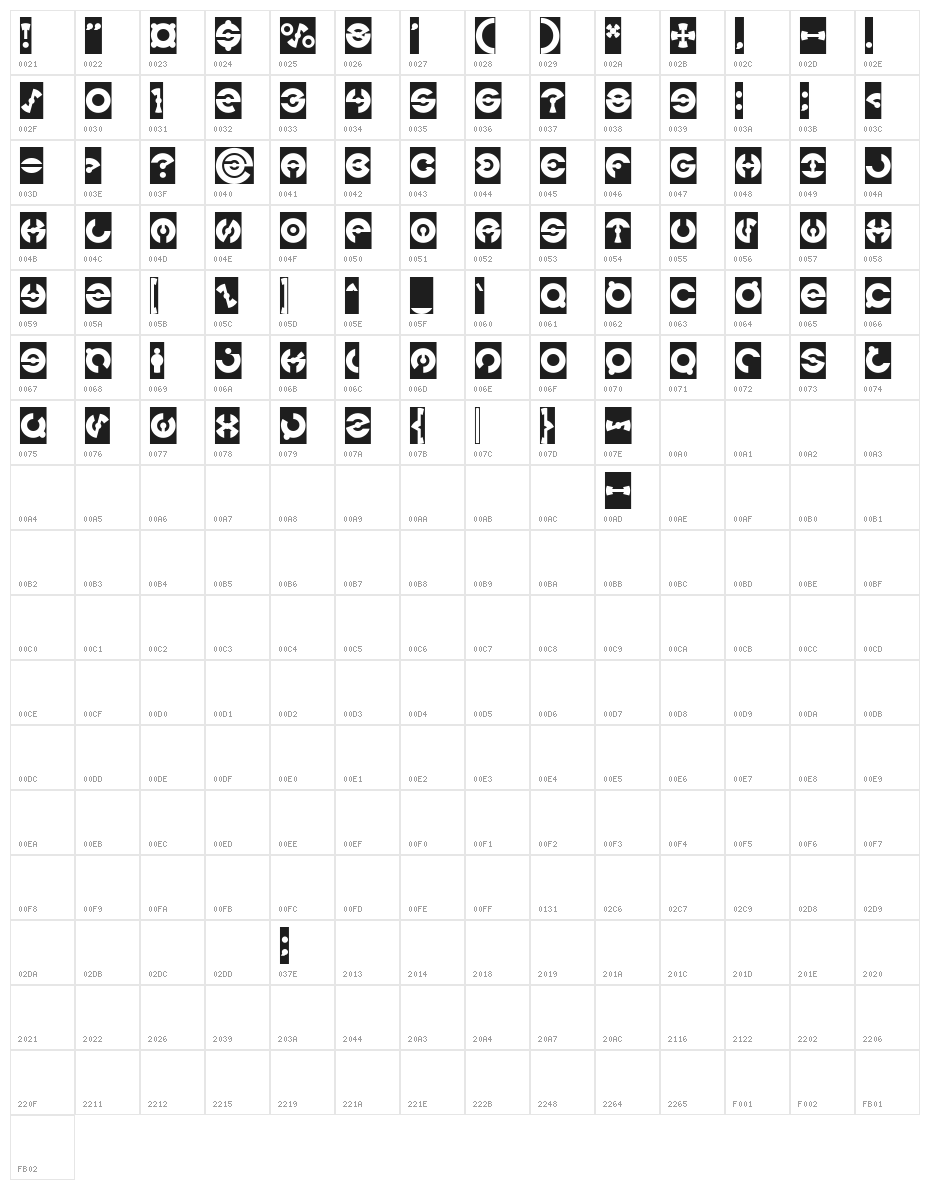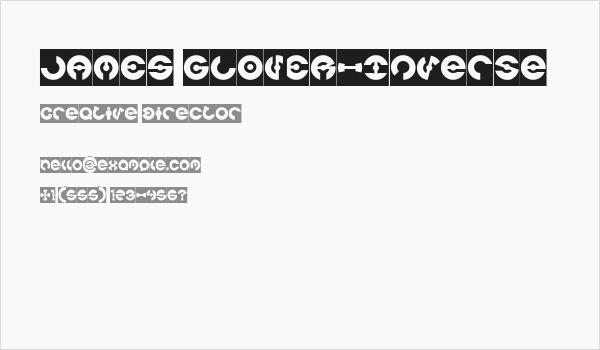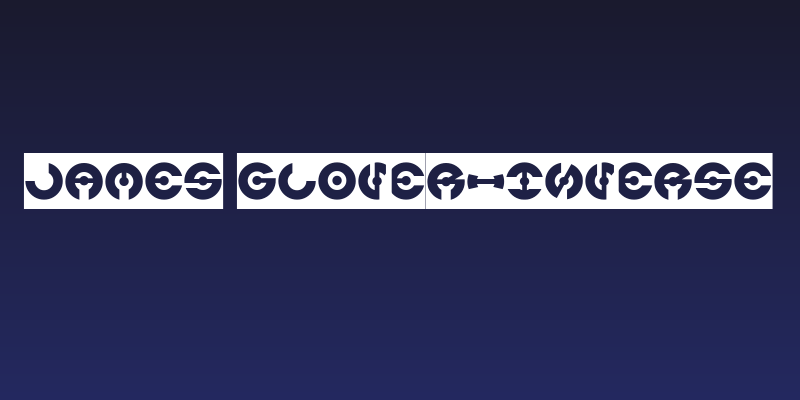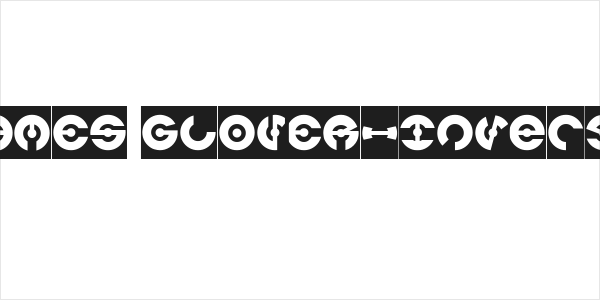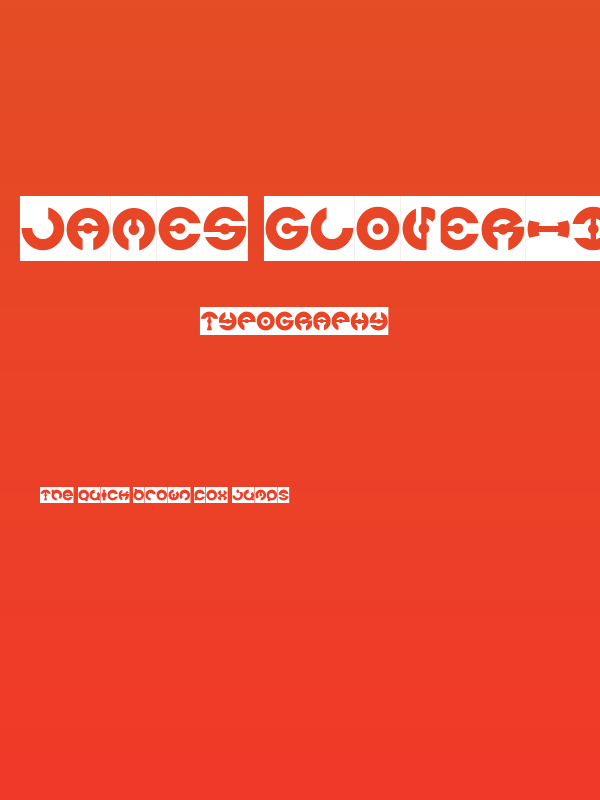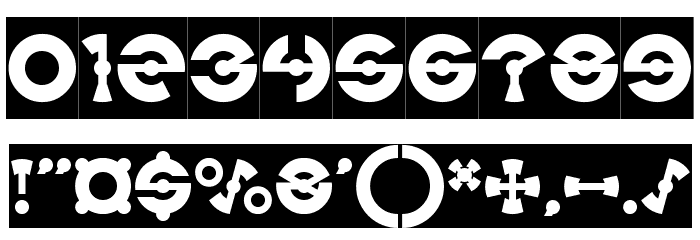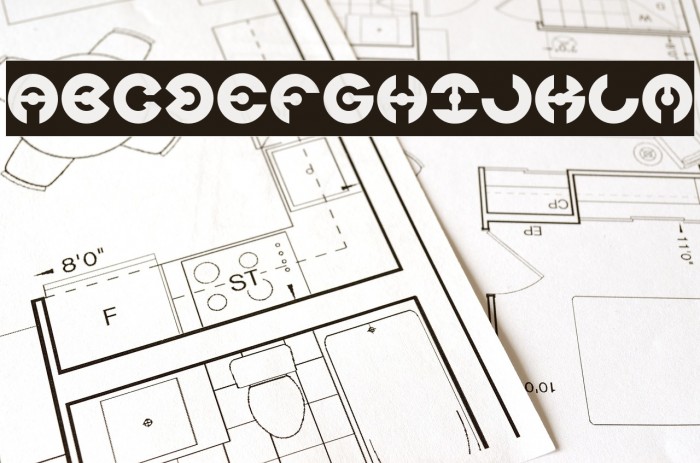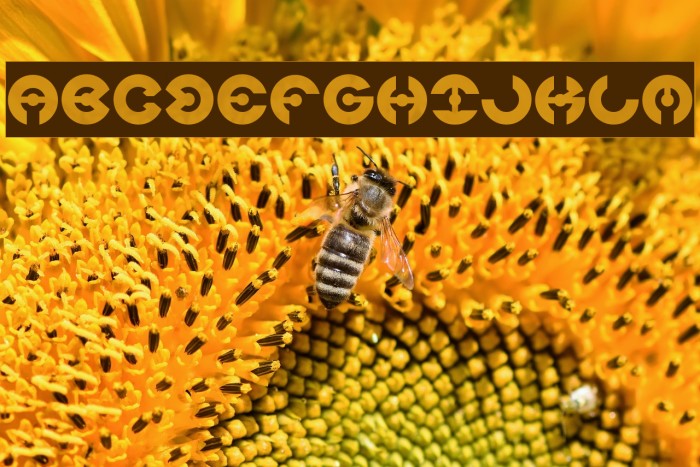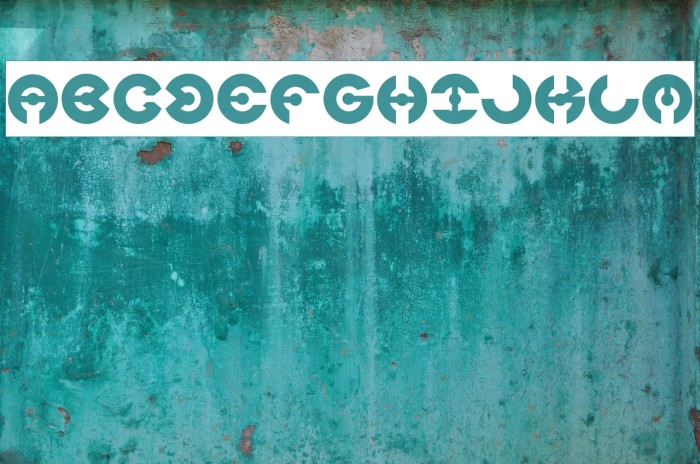
JAMES GLOVER-Inverse Font
JAMES GLOVER-Inverse Description
This font features a highly decorative and unique style, characterized by its bold and geometric shapes. Each character is designed with a strong emphasis on symmetry and circular forms, creating a visually striking and modern appearance. The letters are crafted with a combination of thick and thin strokes, providing a medium contrast that enhances readability while maintaining its artistic flair. The font's design is reminiscent of futuristic and abstract themes, making it suitable for creative and avant-garde projects. Its distinctiveness is further highlighted by the use of negative space, which adds to its dynamic and engaging look.
| Overall Style | Futuristic, Decorative |
| Proposed Projects | Ideal for use in branding, posters, album covers, and any project seeking a modern and artistic touch. |